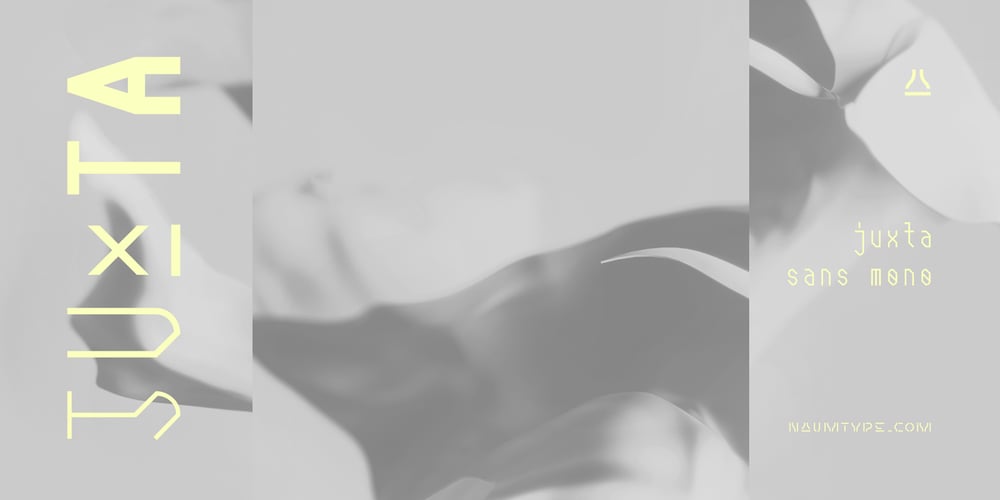
Juxta Sans Mono Font Family was designed by Peter Bushuev and published by NaumType. Juxta Sans Mono contains 8 styles and family package options. Juxta Sans Mono is an experimental monospace sans, an extension of the Juxta superfamily. During the creation of the Juxta script, I felt that the aesthetics and the main idea of the font had promising potential and I started thinking about a pair for it. So the idea of Juxta Sans Mono was formulated. Juxta has several style-forming elements: 45° beveled or cross out bowls, squared m and w arcs and other unobvious letter structures. Despite its unusual and sometimes odd (f, g, m) letterforms, Juxta Sans is fairly easy to read due to its monospace font nature and wide spacing. Juxta Sans Mono offers great customization potential. It has two sets of stylistic alternates — [salt] makes a letter underscored, but keep it in line, [ss01] replaces some of the glyphs with different letterforms. The [case] function automatically adjusts the height of the punctuation marks to the neighbor letter and [onum] is a set of old style numbers. Juxta Sans Mono also has subscript and superscript features, but they are utilized a bit unconventionally — if you want to customize your logo or headline, you can make a glyph superscript and the one next to it subscript and they automatically kern into one letter width. You can see examples of using these features in the presentation. Juxta Sans Mono is available in 8 weights, including Thin, Light, Regular, Medium, SemiBold, Bold, ExtraBold and Black. It extends multilingual support to Basic Latin, Western European, Euro, Catalan, Baltic, Turkish, Central European, Pan African Latin, Afrikaans, and Basic Cyrillic.